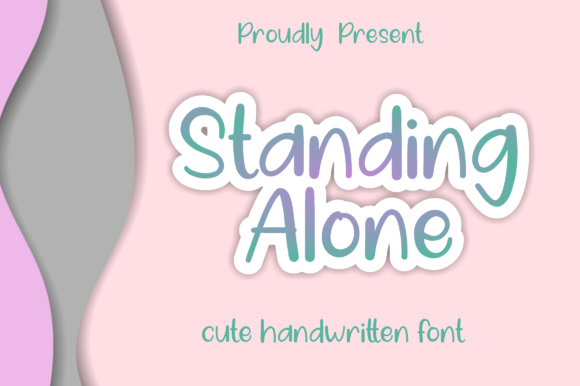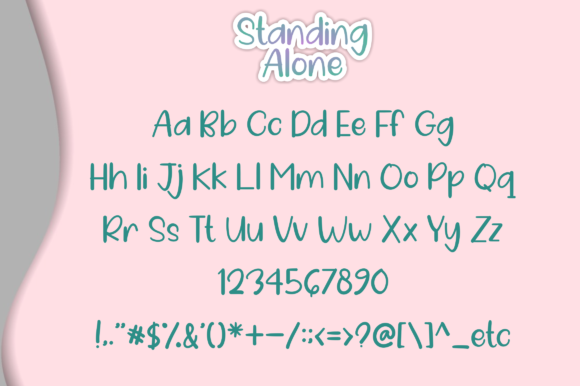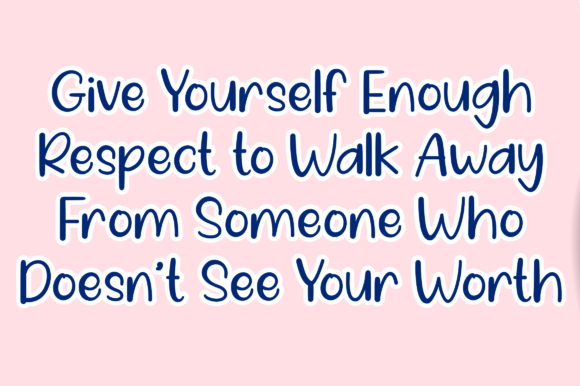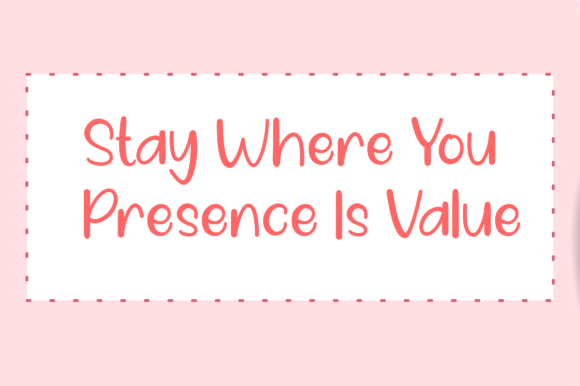
Standing Alone Font
About Standing Alone Font
Standing Alone is a playful, simple and quirky handwritten font, perfect for any design you wish to create. Add it to your most creative ideas, and notice how it makes them come alive!